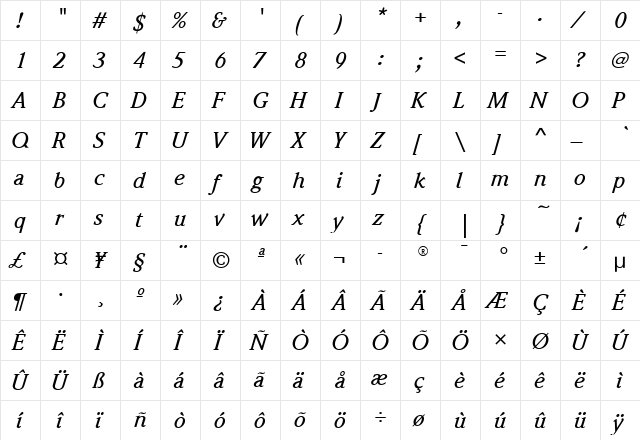
WeidemannMdITC Italic
Design Context for WeidemannMdITC Typeface
WeidemannMdITC takes a measured approach to typography — its balanced proportions and neutral character make it a reliable workhorse for both digital and print work. Its italic angle brings a sense of urgency and motion to the letterforms.
Pro Tip: Use WeidemannMdITC for emphasis, pull quotes, and subheadings where its slanted energy can add rhythm to the layout.